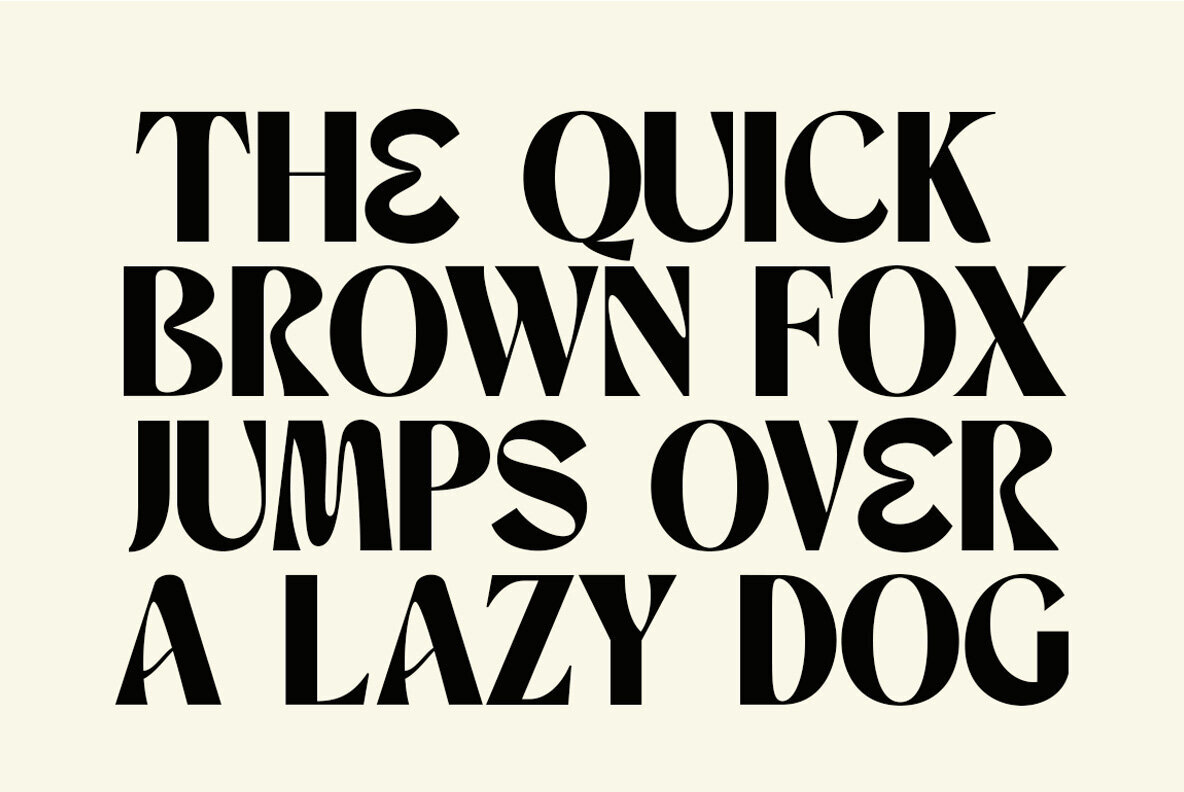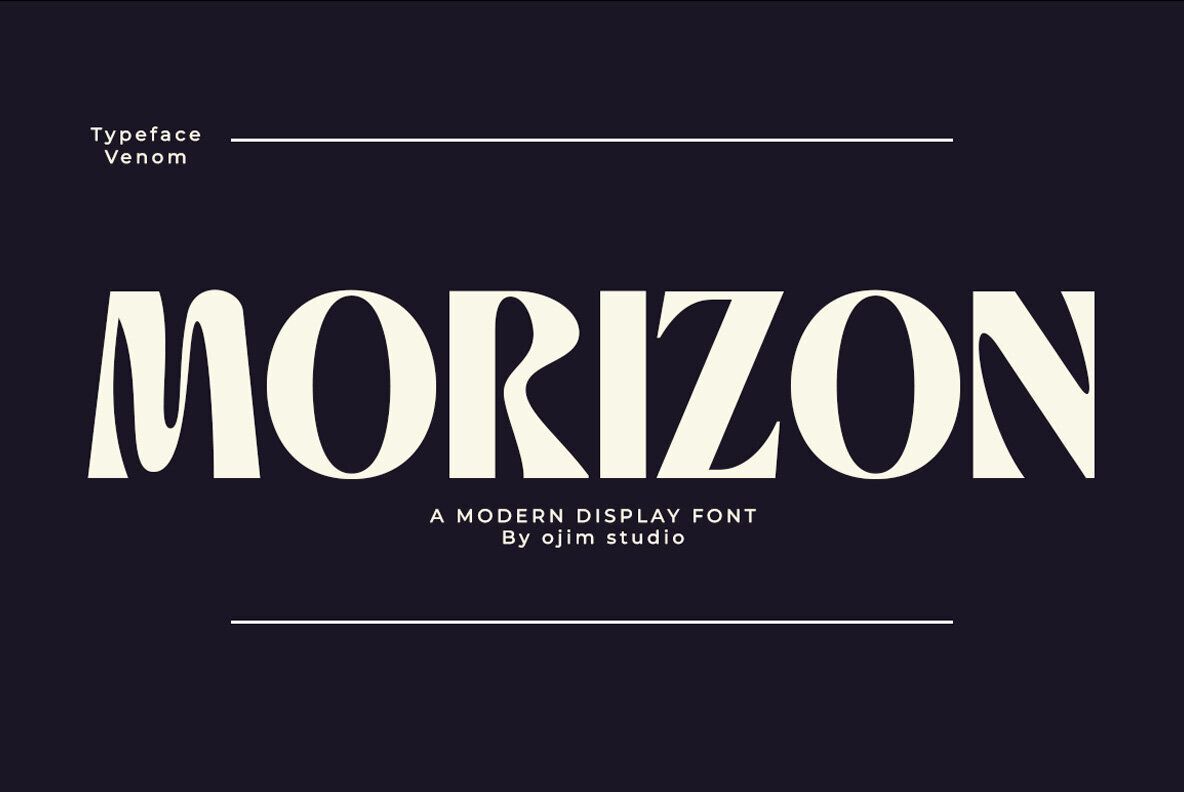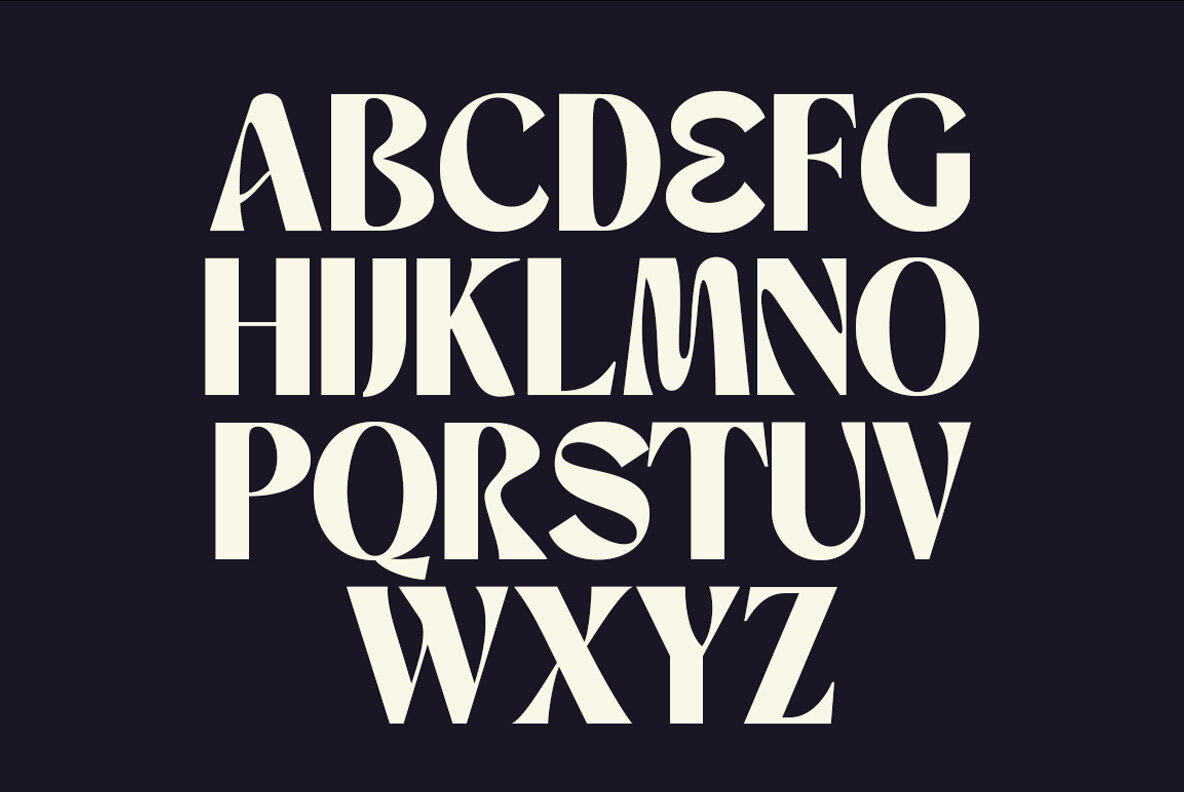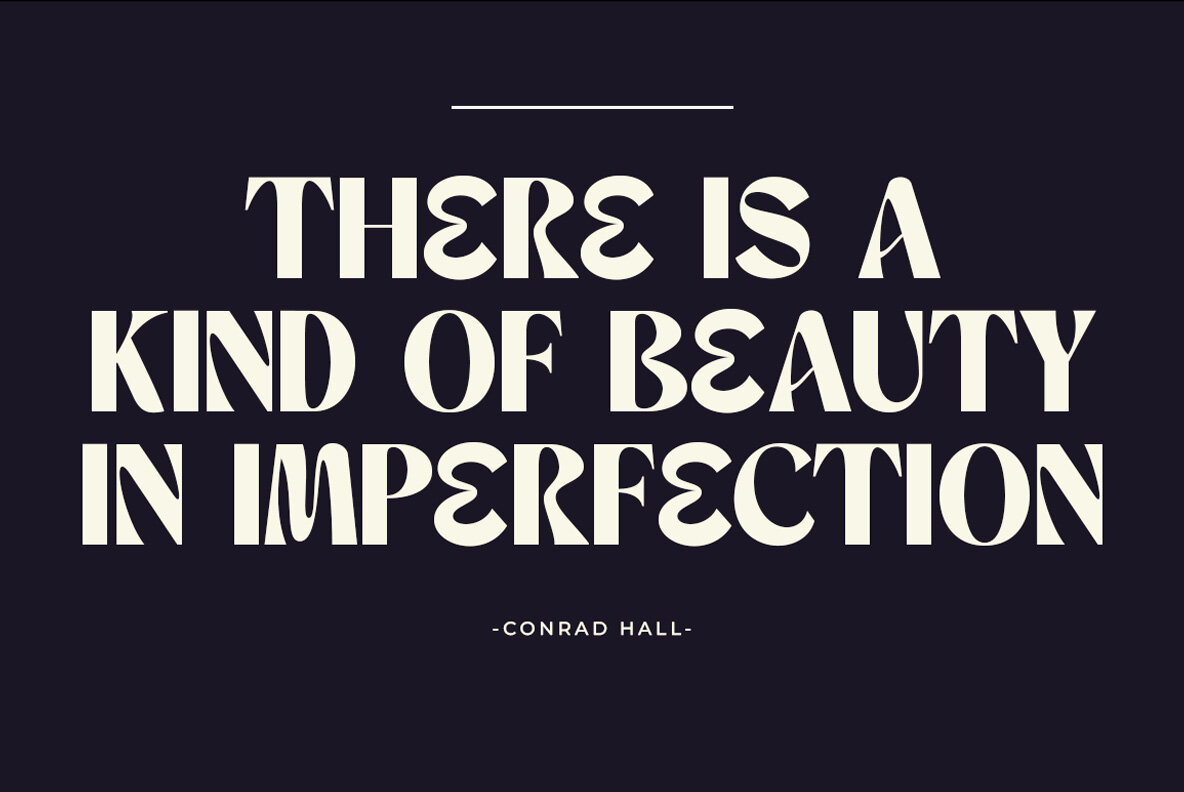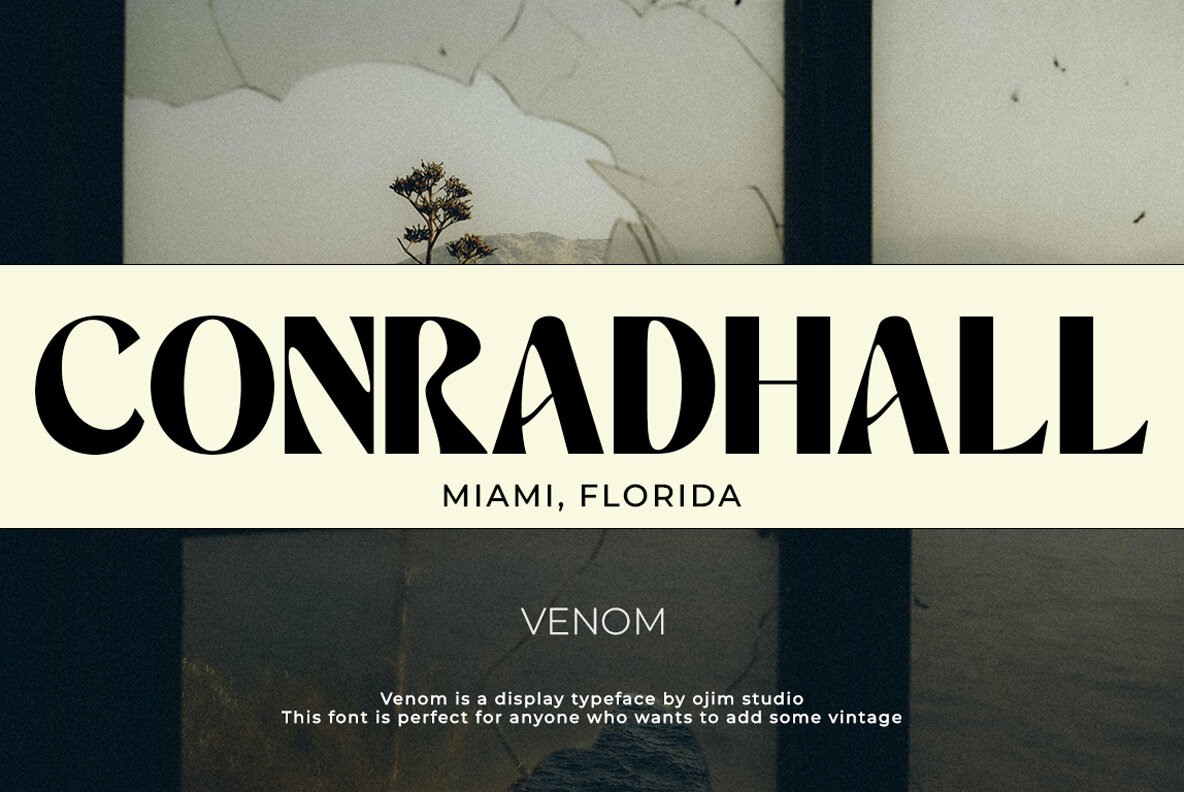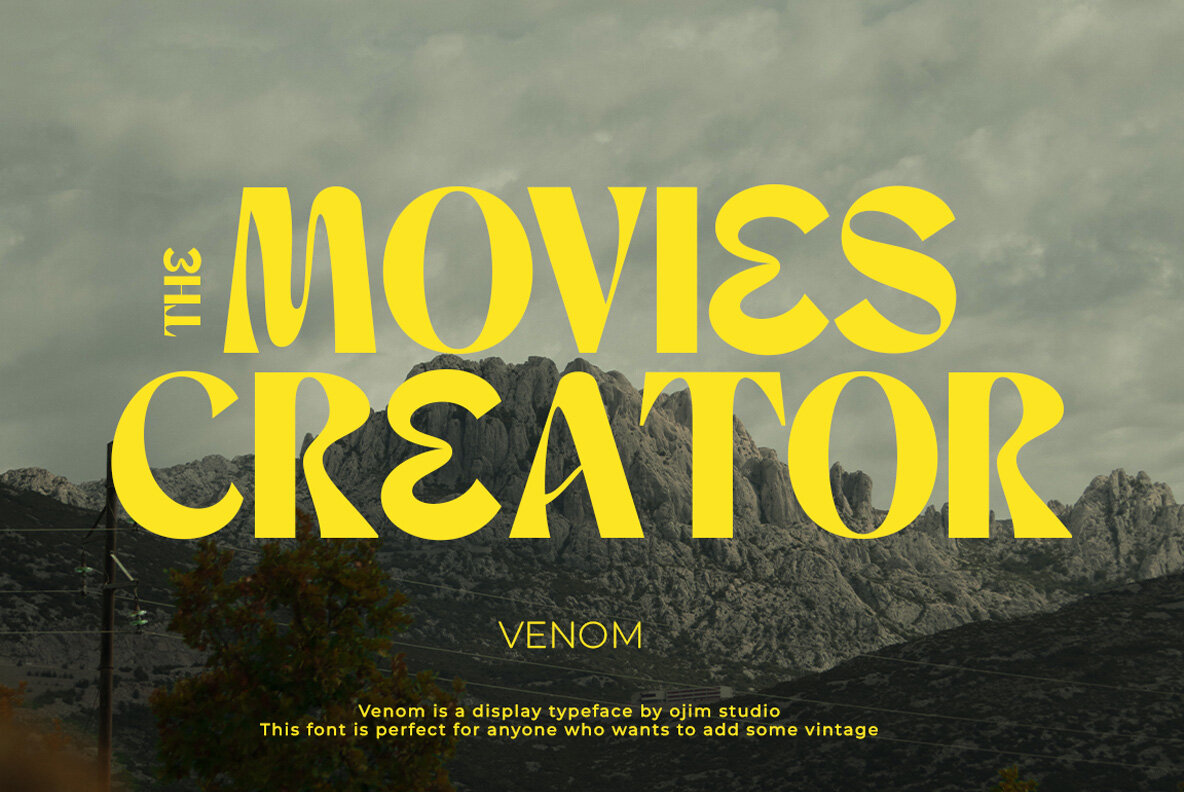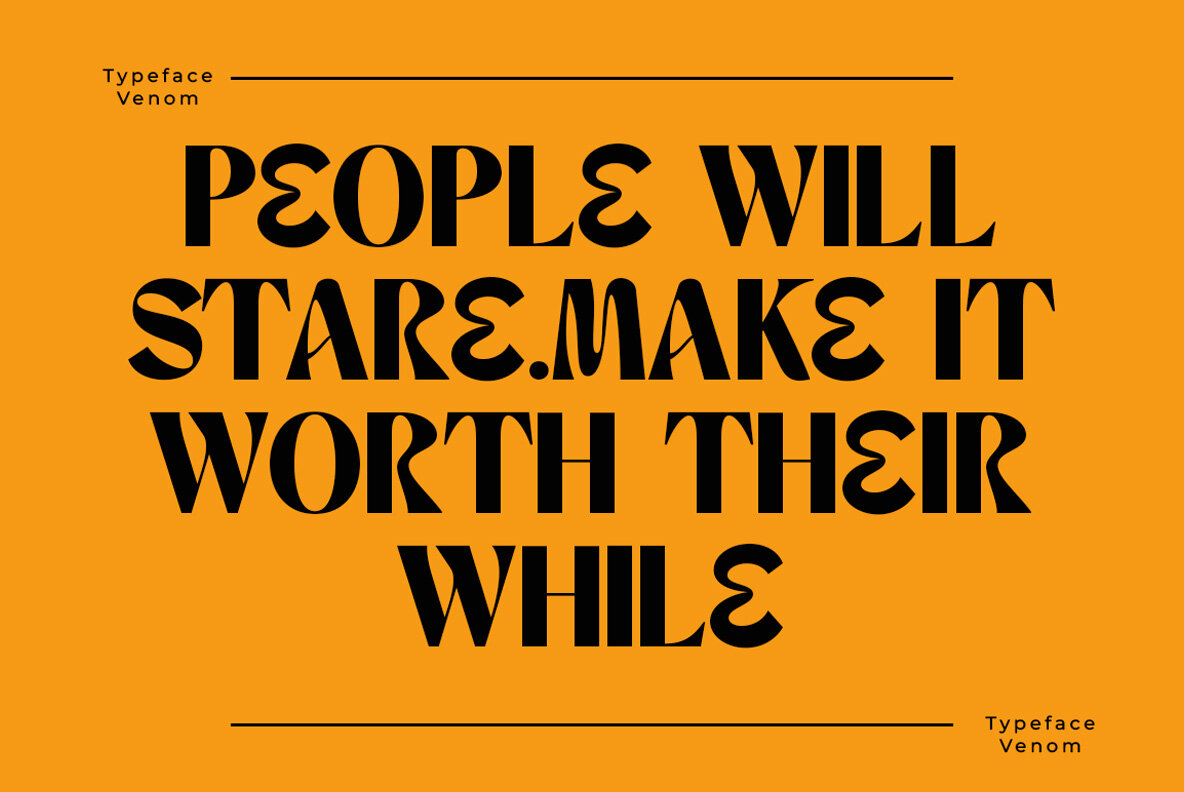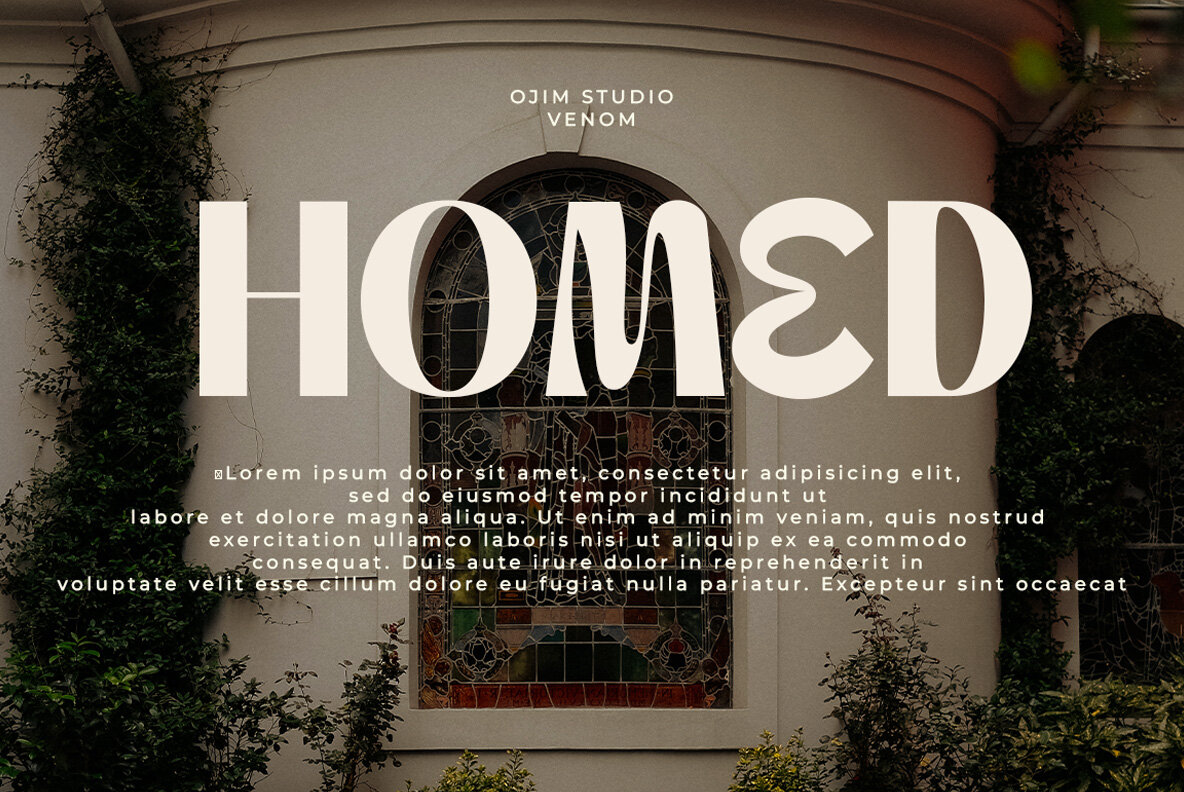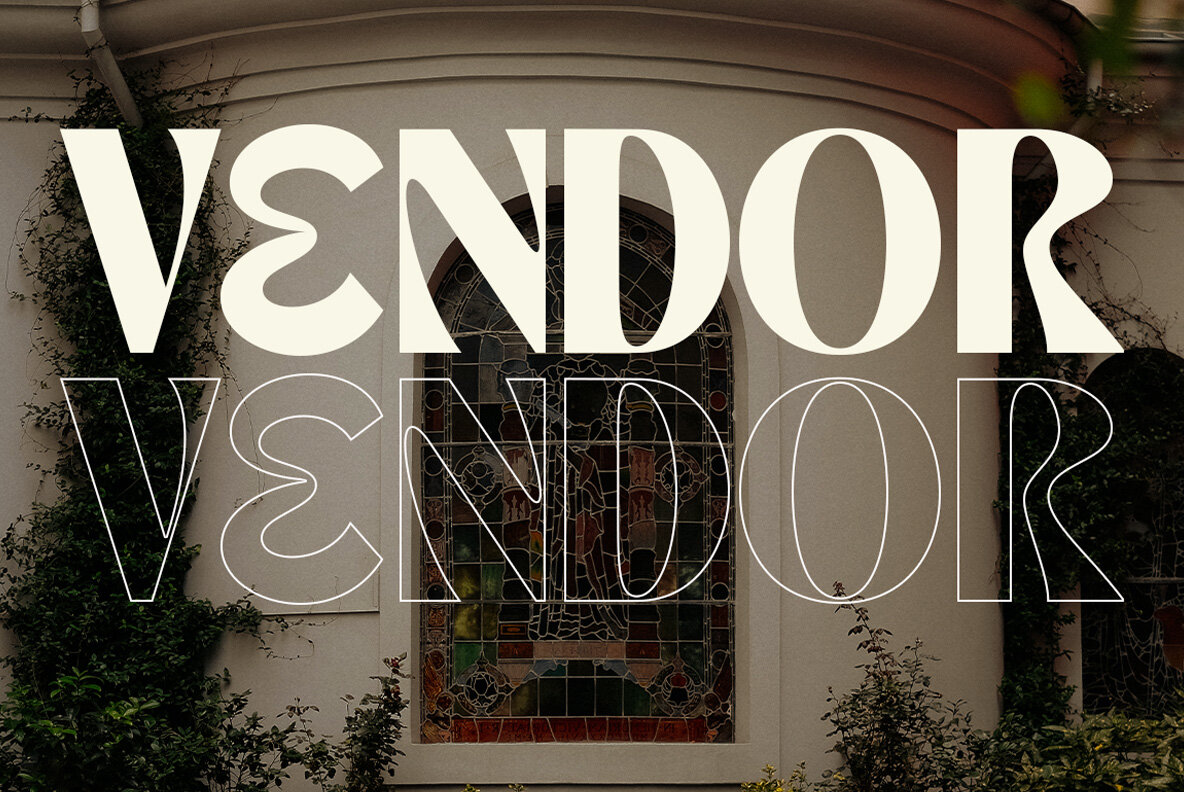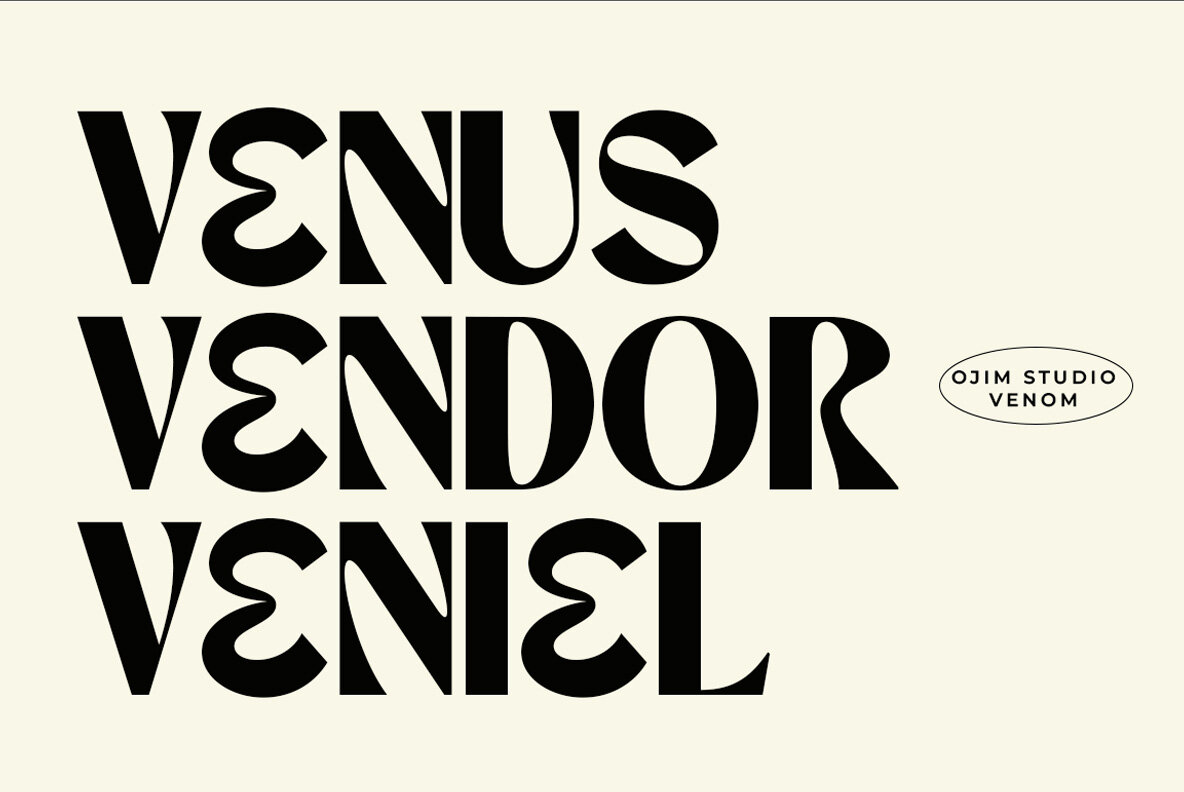
VENOM Font
VENOM Regular
Venom font brings a touch of vintage charm and retro appeal to your designs, making it ideal for those looking to infuse a nostalgic feel into their work. This font offers condensed shapes that deliver a strong rhythm, paired with rounded letterforms like 'O' or 'C' and featuring large alternate glyphs. Embrace the distinct character of Venom and elevate your design projects with its captivating, classic style.